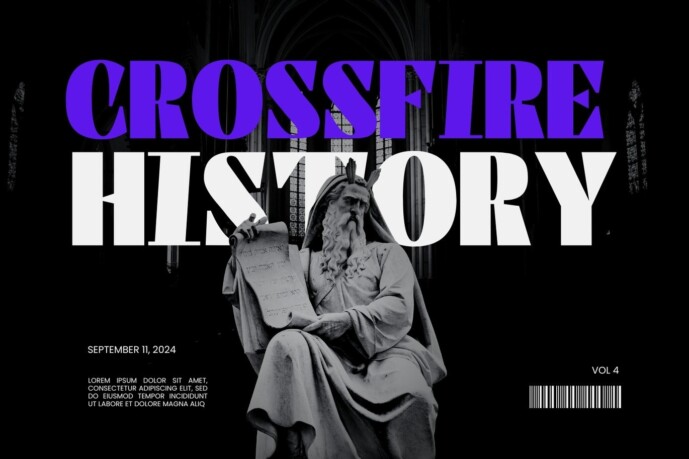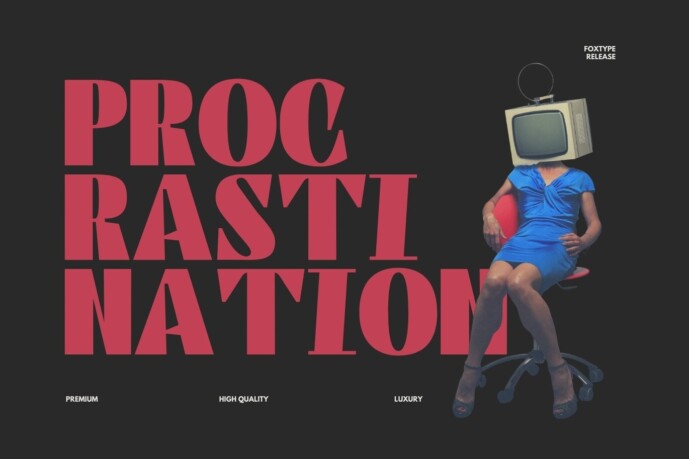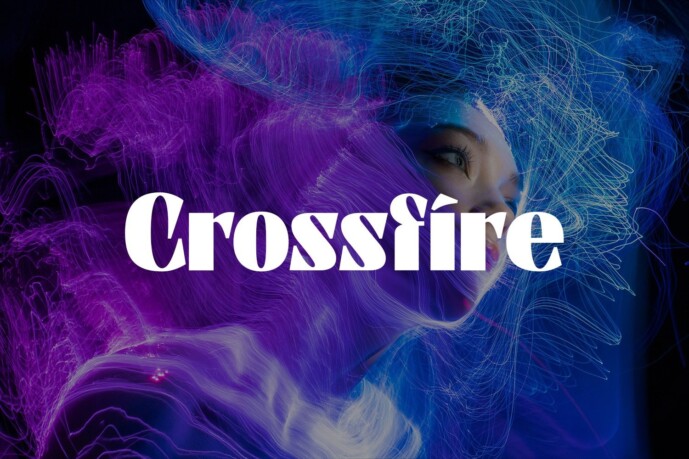
Crossfire Font
Crossfire Font is a meticulously crafted font designed to bring a bold touch to your creative projects. Ideal for posters, magazine covers, headlines, logos, branding and more, this font brings a modern and dynamic touch to any design.